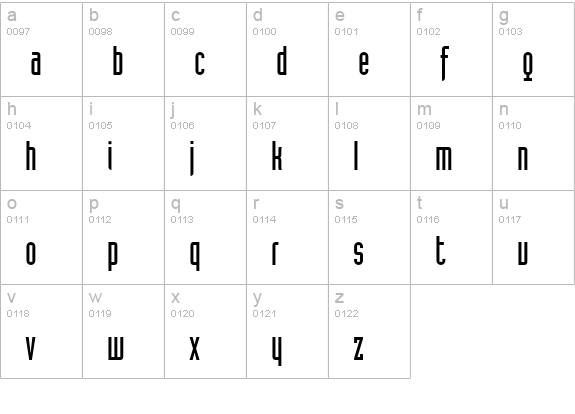
Industria Solid A font is a visually striking typeface that exudes strength and modernity. With its bold and robust letterforms, this font commands attention and makes a powerful statement. The solid and sturdy design of each character gives it a sense of industrial strength, making it the perfect choice for projects that require a bold and impactful visual identity. What sets Industria Solid A font apart is not just its strong and commanding aesthetics, but also its accessibility. It is freely available to download at FontsMarket.com, allowing designers, creatives, and enthusiasts alike to easily access and utilize this exceptional typeface. This font's availability for free ensures that it can be widely used and enjoyed by anyone who seeks to make a bold impression with their designs. Whether you're working on a logo, a poster, a website, or any other design project, Industria Solid A font will elevate your work to new heights. Its clean and precise lines, combined with its distinct boldness, make it a versatile choice that can be used in a variety of contexts. From corporate branding to advertising campaigns, this font will make a lasting impact on your audience. Industria Solid A font's versatility extends beyond its visual appeal. Its legibility and readability make it a reliable choice for both print and digital applications. No matter the size or resolution, this font retains its strong presence and ensures that your message is effectively communicated. In conclusion, Industria Solid A font is a powerful and impactful typeface that is freely available to download at FontsMarket.com. Its bold and robust design, combined with its accessibility, makes it a valuable asset for designers seeking to make a lasting impression. With Industria Solid A font, your designs will exude strength, modernity, and professionalism.